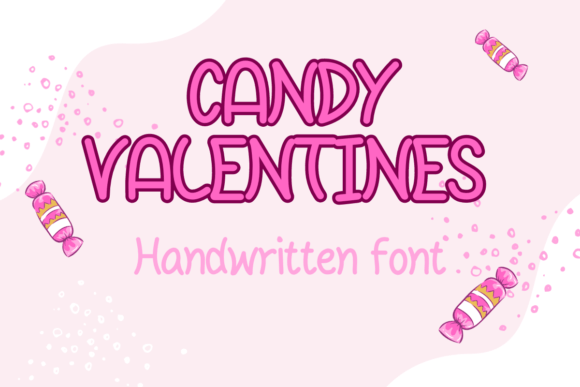
The Sweetest Font for Your Creative Projects: Candy Valentines Font
I’ll never forget the time I was working on a Valentine’s Day project for a client, and I just couldn’t find the perfect font to match the sweet and playful vibe they were looking for. I scrolled through page after page of Google Fonts, tried out dozens of paid fonts, and even considered creating my own from scratch (don’t ask how that went 😂). But then, I stumbled upon Candy Valentines Font, and it was love at first sight! 💕
An Honest Review of Candy Valentines Font
So, what makes Candy Valentines Font so special? Let’s dive into the good stuff and a few quirks I’ve discovered. 🤔
• ✨ Handwritten charm: Candy Valentines Font has a beautiful, human touch that makes it perfect for projects that need a personal feel.
• ✅ Versatility: This font is not just limited to Valentine’s Day or love-themed projects. Its playful nature makes it suitable for a wide range of designs, from kids’ party invitations to social media graphics.
• 💖 Easy to read: Despite its handwritten style, Candy Valentines Font is surprisingly legible, even at smaller sizes.
• ⚠️ Limited use in formal contexts: Given its playful and informal nature, Candy Valentines Font might not be the best choice for more formal projects, like corporate branding or official documents.
• 🤔 Requires attention to spacing: In some cases, you might need to adjust the letter spacing manually to ensure optimal readability and aesthetics.
The Backstory Behind Candy Valentines Font
While the exact origins of Candy Valentines Font are unclear, it’s easy to imagine that its creation was inspired by the joy and playfulness of handwritten notes exchanged on Valentine’s Day. Designers often draw inspiration from everyday moments and objects, transforming them into fonts that can be enjoyed by creatives worldwide.
Font Name Candy Valentines Font
Author Nun Sukhwan